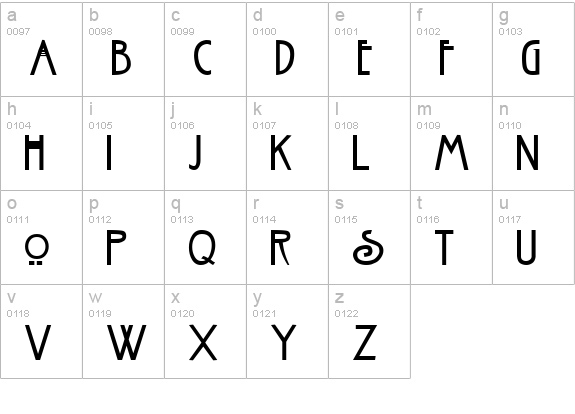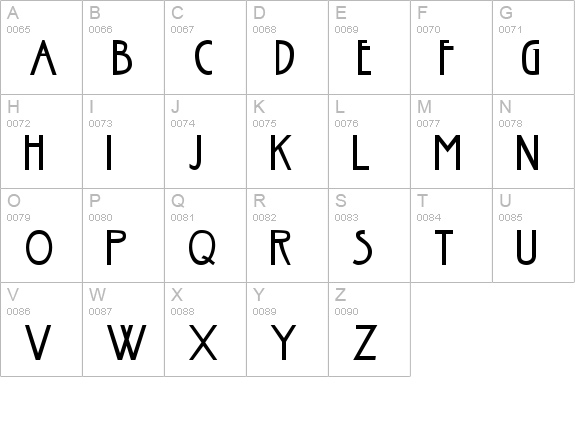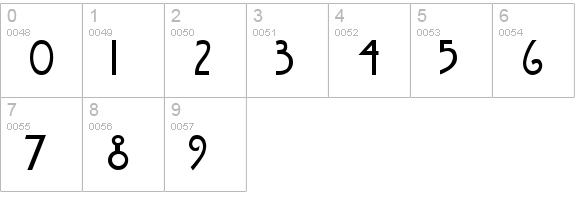
Nouveau Regular Font Details
Nouveau Regular is the standard, neutral variant in the Nouveau typeface family \xE2\x80\x94 well suited to general body text, paragraphs, and standard typographic work.
Nouveau Regular is a versatile and elegant font that captures the essence of sophistication and modernity. With its clean lines and balanced proportions, this font exudes a timeless beauty that can enhance any design project. The Nouveau Regular font is perfect for both professional and personal use, as it offers a harmonious blend of legibility and artistic flair. Its sleek and stylish appearance makes it ideal for a wide range of applications, from branding and logo design to editorial layouts and web content. One of the most remarkable aspects of Nouveau Regular is that it is available free of charge. Yes, you read that right! This stunning font can be freely downloaded from FontsMarket.com, allowing you to take advantage of its exceptional quality without breaking the bank. Whether you're a graphic designer looking to add a touch of elegance to your creations or a business owner seeking a font that will make your brand stand out, Nouveau Regular is the perfect choice. Its versatility, beauty, and affordability make it a must-have for anyone in need of a high-quality font for their projects. So why wait? Head over to FontsMarket.com and download Nouveau Regular today. With its clean and modern aesthetic, this font will elevate your designs to new heights and leave a lasting impression on your audience. Don't miss out on the opportunity to enhance your creations with this remarkable font – get Nouveau Regular now and let your creativity soar!